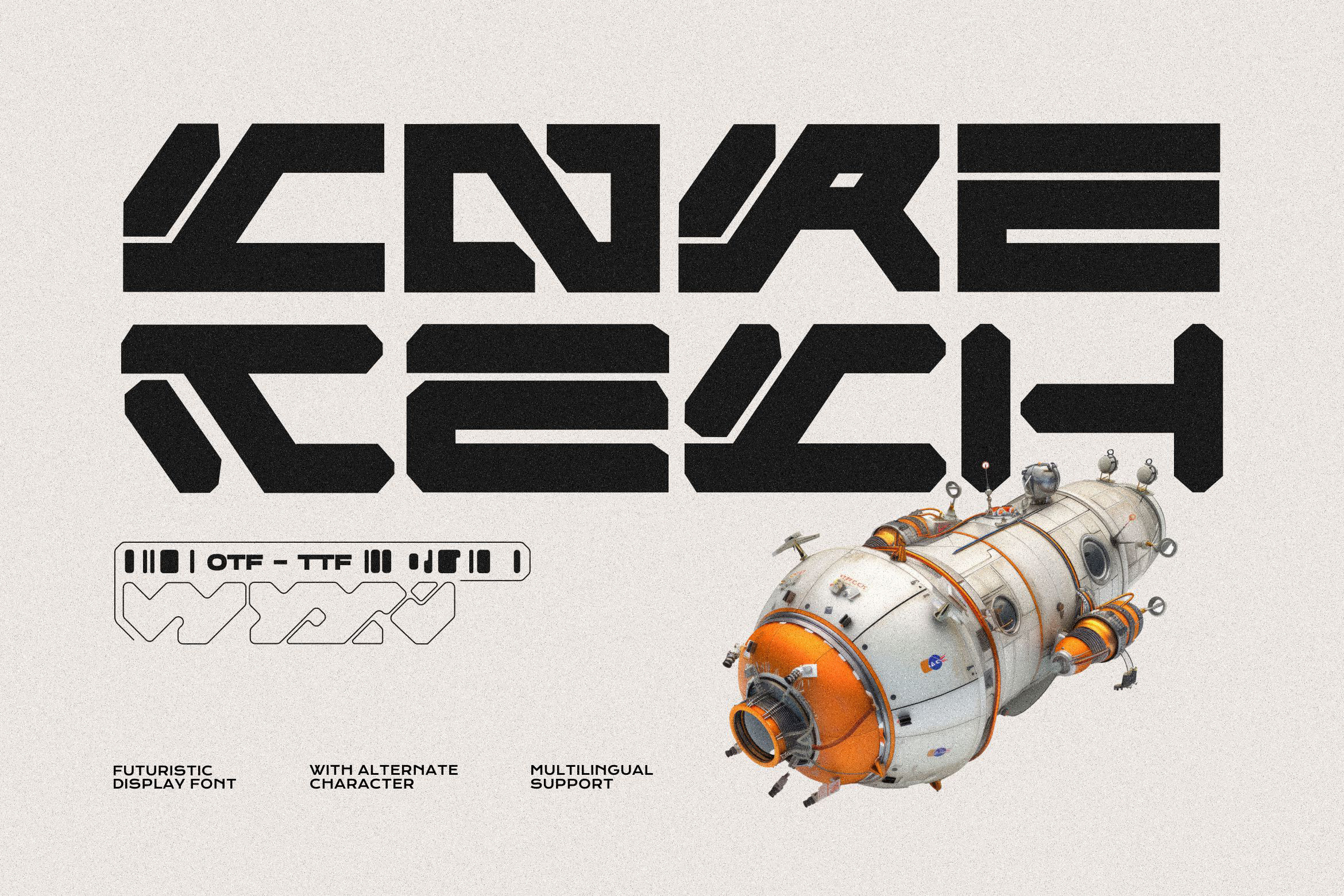
Core Tech - Futuristic Tech Font
Launch your designs into the future with Core Tech, a powerful and assertive display font built for the high tech world. Drawing inspiration from cyberpunk aesthetics, its geometric letterforms, sharp edges, distinctive stencil style cuts, and modular construction. This creates a strong sense of structure and a modern, mechanical feel, make it the perfect choice for projects that demand a futuristic tech edge.
Core Tech isn't just one dimensional, it comes packed with a set of dynamic alternate characters. Swap out standard letters for their more stylized, slanted counterparts to instantly add a sense of motion and aggressive energy to your typography. This versatility makes it an essential tool for creating unique and memorable designs.
Infuse your projects with a sleek, futuristic edge. This is the ideal solution for crafting dynamic logos for tech companies, creating immersive branding for gaming studios, and designing cinematic posters that capture a sci-fi or cyberpunk mood. Elevate your digital presence with captivating website headers, intuitive interfaces for games and films, and powerful on screen graphics for streaming.